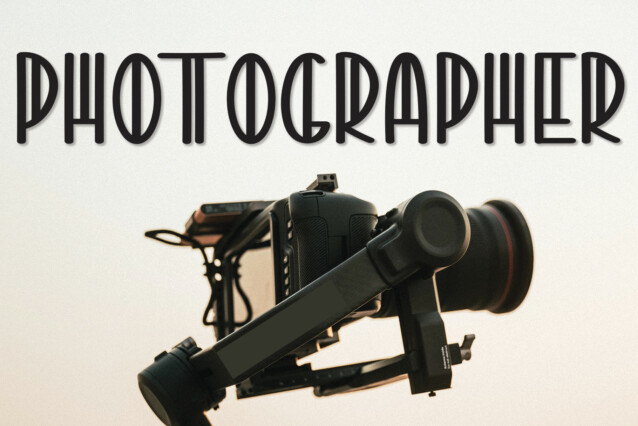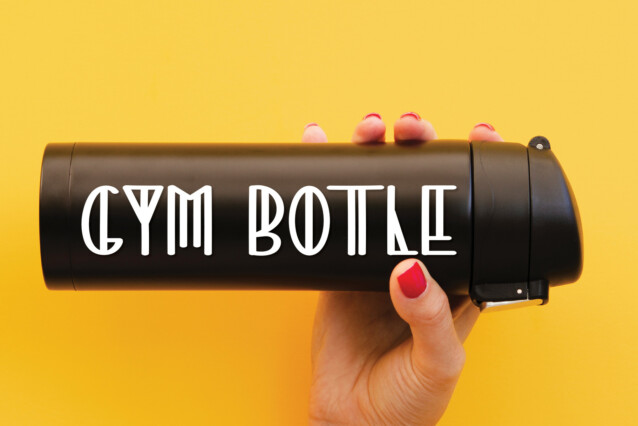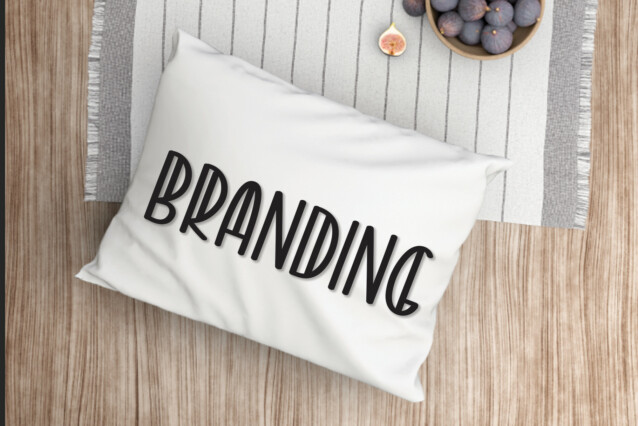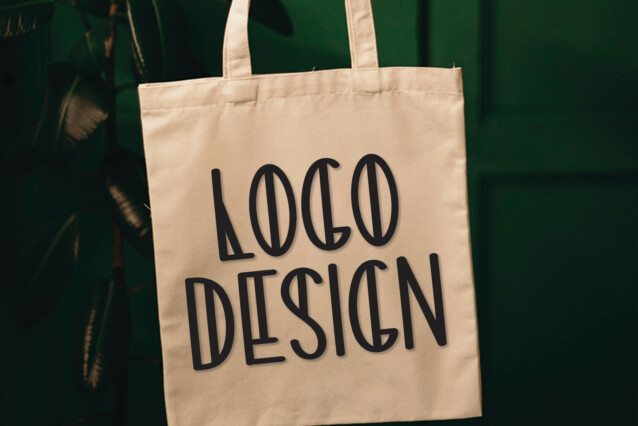
Dated Display Font
Dated Display Font is a cool and fun display typeface with characters that dance along the baseline. It will add a unique spark to any design project that you wish to create!